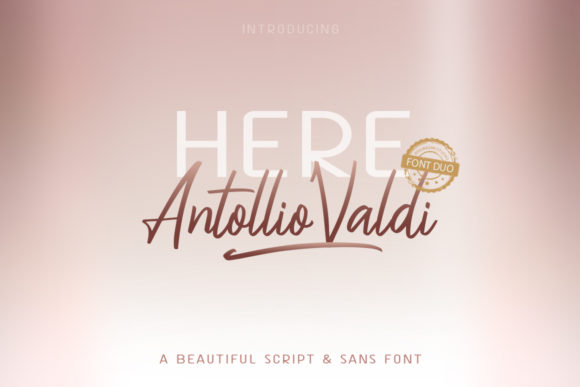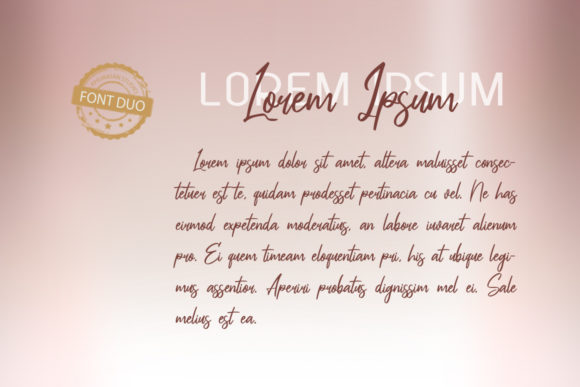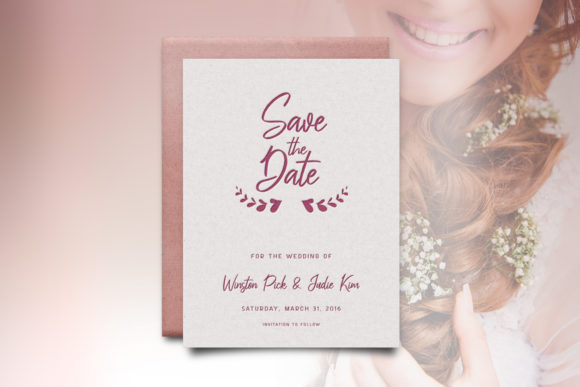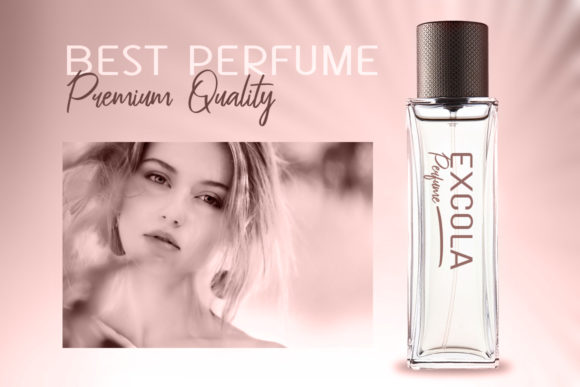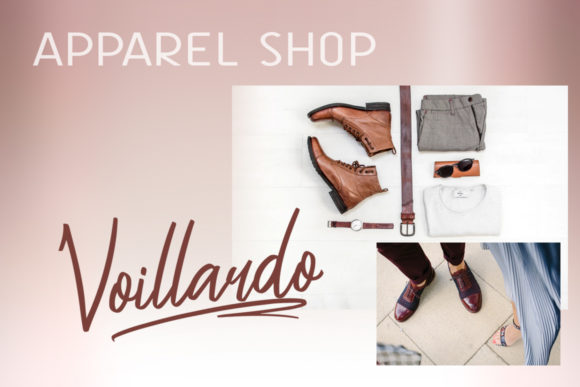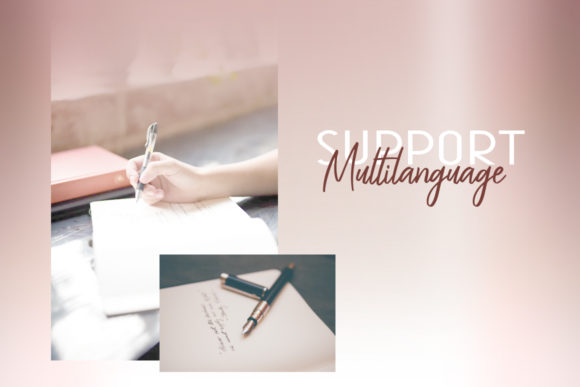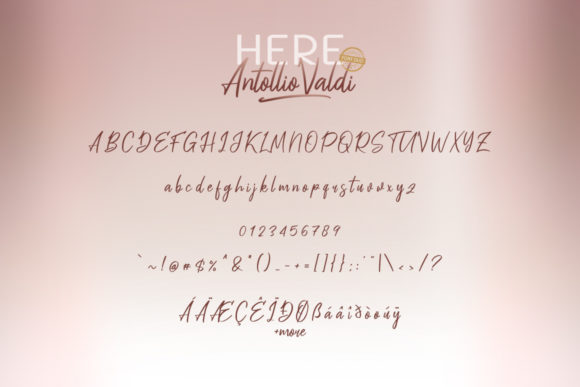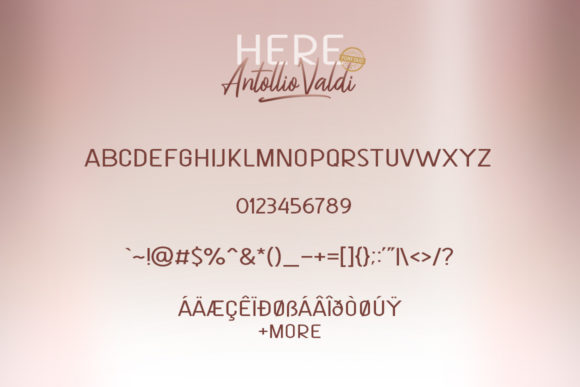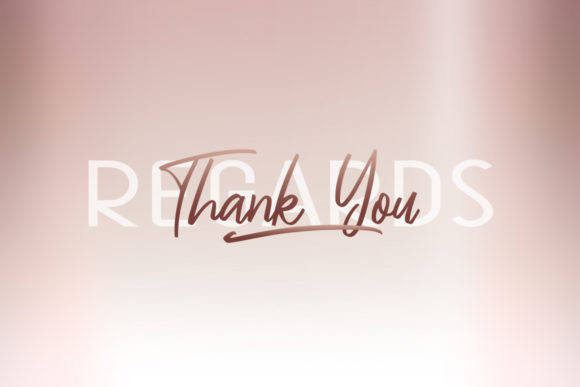
Here Antollio Valdi Duo Font
Here Antollio Valdi Duo is an amazing, authentic and bold font duo. It comes in a script and sans version which can be perfectly combined to turn any design project into a stand out.